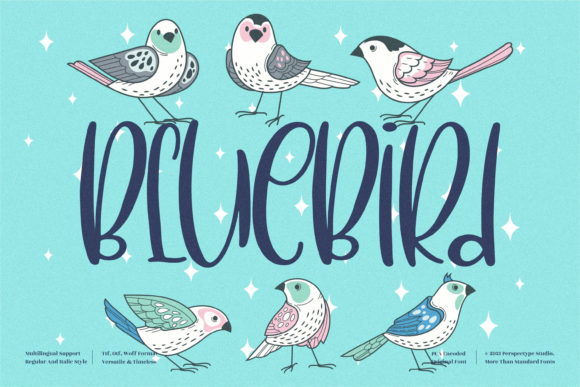
The BlueBird Font: A Cool, Relaxed, and Casual Handwritten Delight
I’ll never forget the time I was working on a project for a children’s book, and I just couldn’t find the right font to bring the story to life. The client wanted something playful, yet elegant, and I was determined to deliver. That’s when I stumbled upon the BlueBird font, and it was love at first sight! 💕
Whether you’re a designer, crafter, or creative hobbyist, this font is sure to become a favorite in your collection. In this article, we’ll dive into the world of BlueBird, exploring its features, uses, and what makes it so special.
An Honest Review of BlueBird Font
What I Love About BlueBird ✨
- 💖 It’s cool, relaxed, and casual, making it perfect for cartoon-related designs, children’s games, or any creation that requires a lovely touch.
- ✅ The handwritten style is easy to read and understand, even at smaller font sizes.
- 🎨 The font comes with a range of OpenType features, including glyphs and stylistic alternates, giving you plenty of creative freedom.
While BlueBird is an amazing font, there are a few things to keep in mind:
- ⚠️ Some of the glyphs and special characters may not work well at very small font sizes.
- ⚠️ The font may not be suitable for very formal or professional designs, as it’s inherently playful and casual.
The Backstory Behind BlueBird Font
The story behind BlueBird font is one of creativity and inspiration. According to the designer, the font was created with the intention of capturing the carefree spirit of a summer day. The designer wanted to create a font that would evoke feelings of happiness and playfulness, making it perfect for designs that require a personal touch.
Q: What type of designs is BlueBird font best suited for?
A: BlueBird font is perfect for cartoon-related designs, children’s games, or any creation that requires a lovely, playful touch.